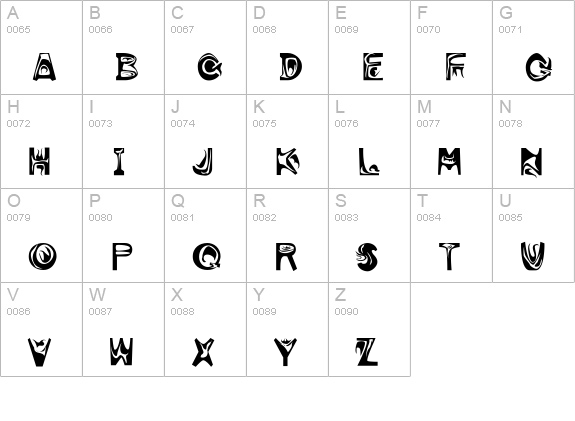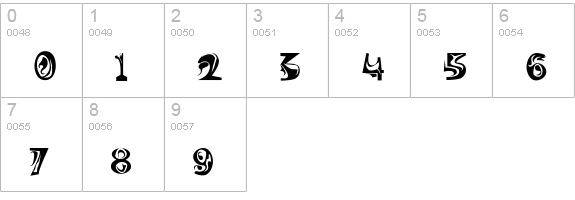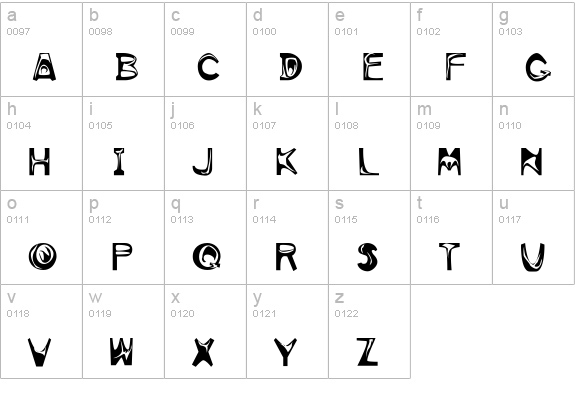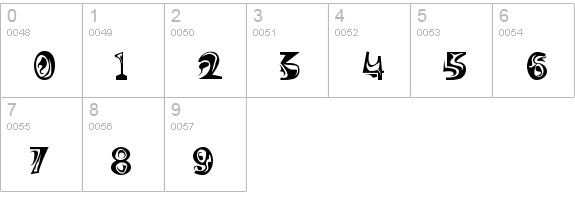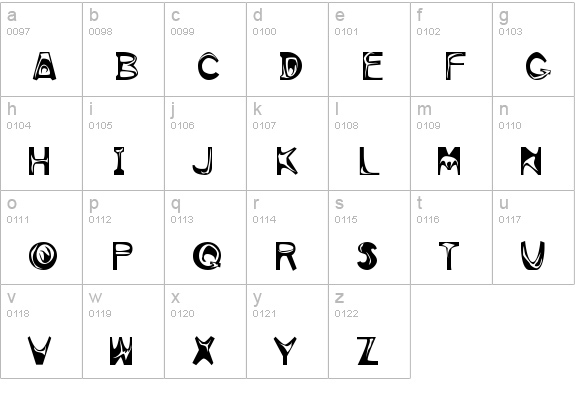
ThistlemParts Font Details
ThistlemParts is a beautifully designed font that exudes elegance and sophistication. Its delicate and intricate details make it the perfect choice for projects that require a touch of refinement. With its unique blend of sharp lines and curved edges, ThistlemParts captures attention and adds a touch of visual interest to any design. But what makes ThistlemParts truly special is that it is not only aesthetically pleasing, but also freely available for download. Yes, you read that right - this exquisite font can be yours at no cost! FontsMarket.com, a renowned platform for font enthusiasts, offers ThistlemParts as a free download, allowing you to elevate your designs without breaking the bank. Whether you're working on a professional project, creating stunning graphics, or designing eye-catching merchandise, ThistlemParts is a font that will undoubtedly leave a lasting impression. Its versatility allows it to be equally at home in elegant invitations, sophisticated branding materials, or even captivating social media posts. So why wait? Head over to FontsMarket.com and get your hands on ThistlemParts today. Embrace the beauty of this font and elevate your designs to new heights, all while enjoying the convenience of a free download.